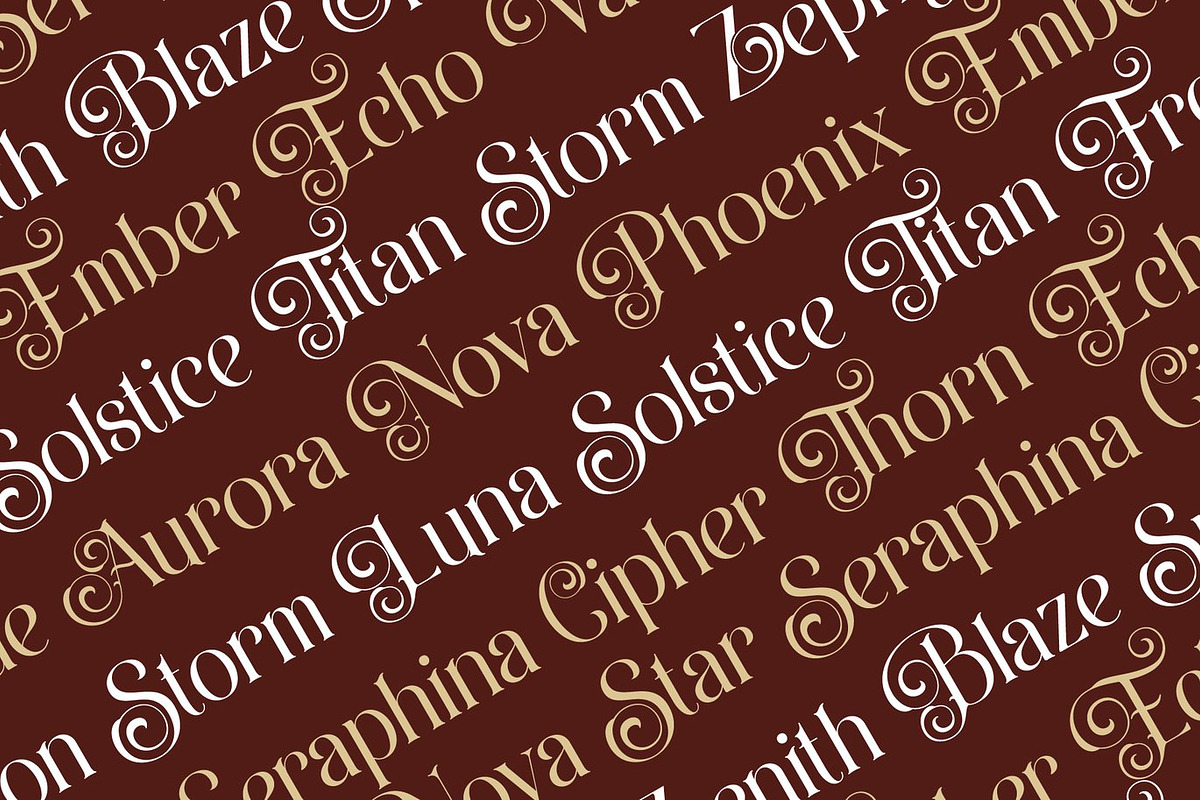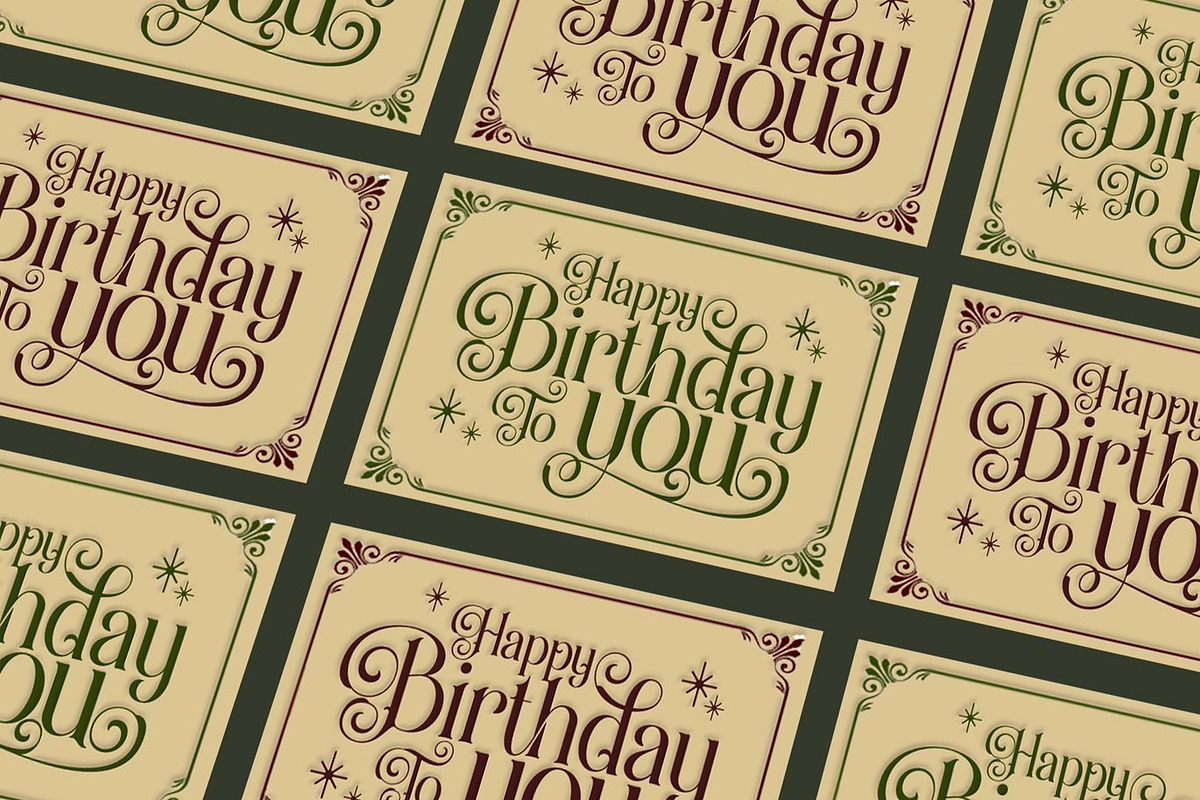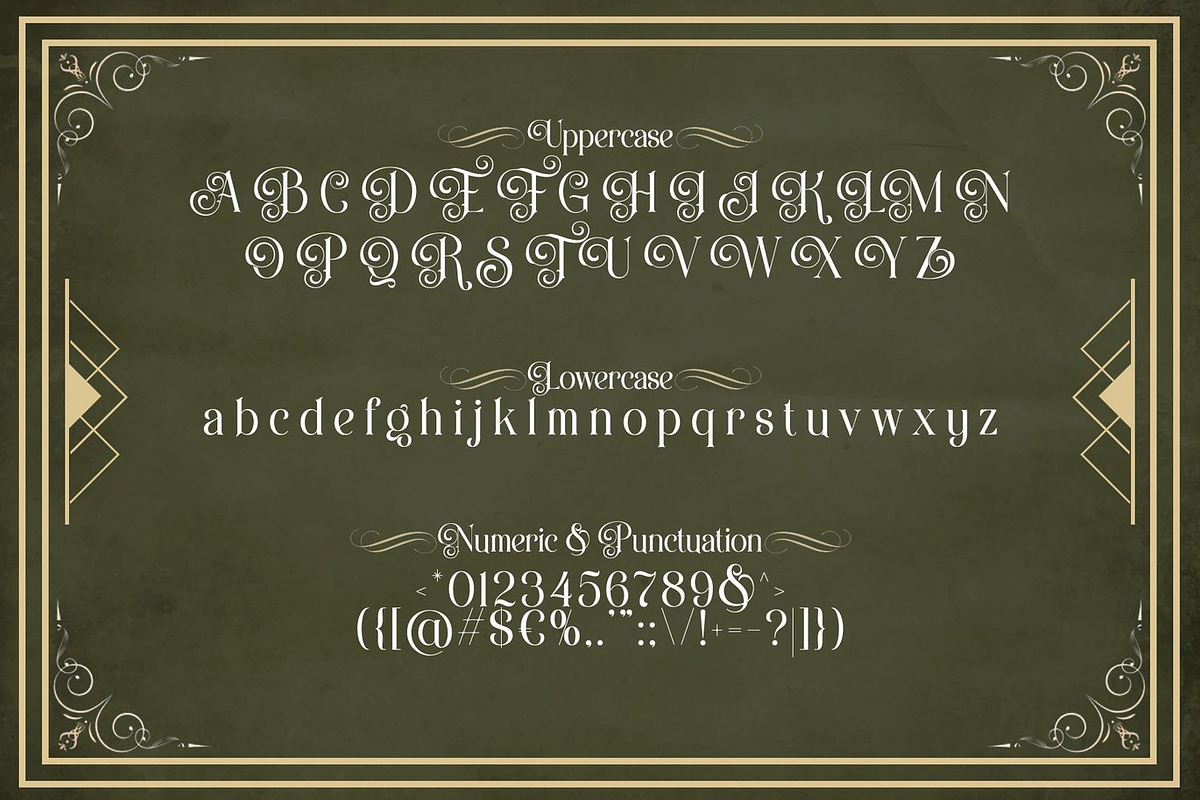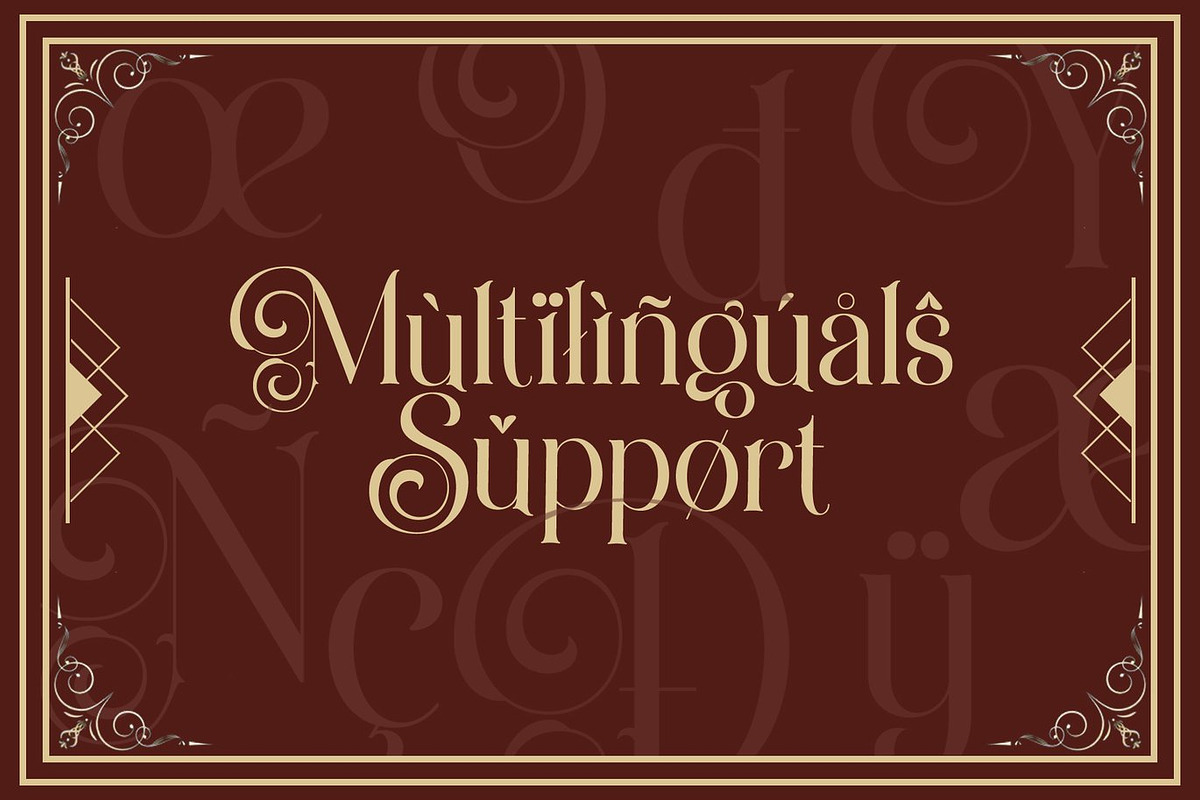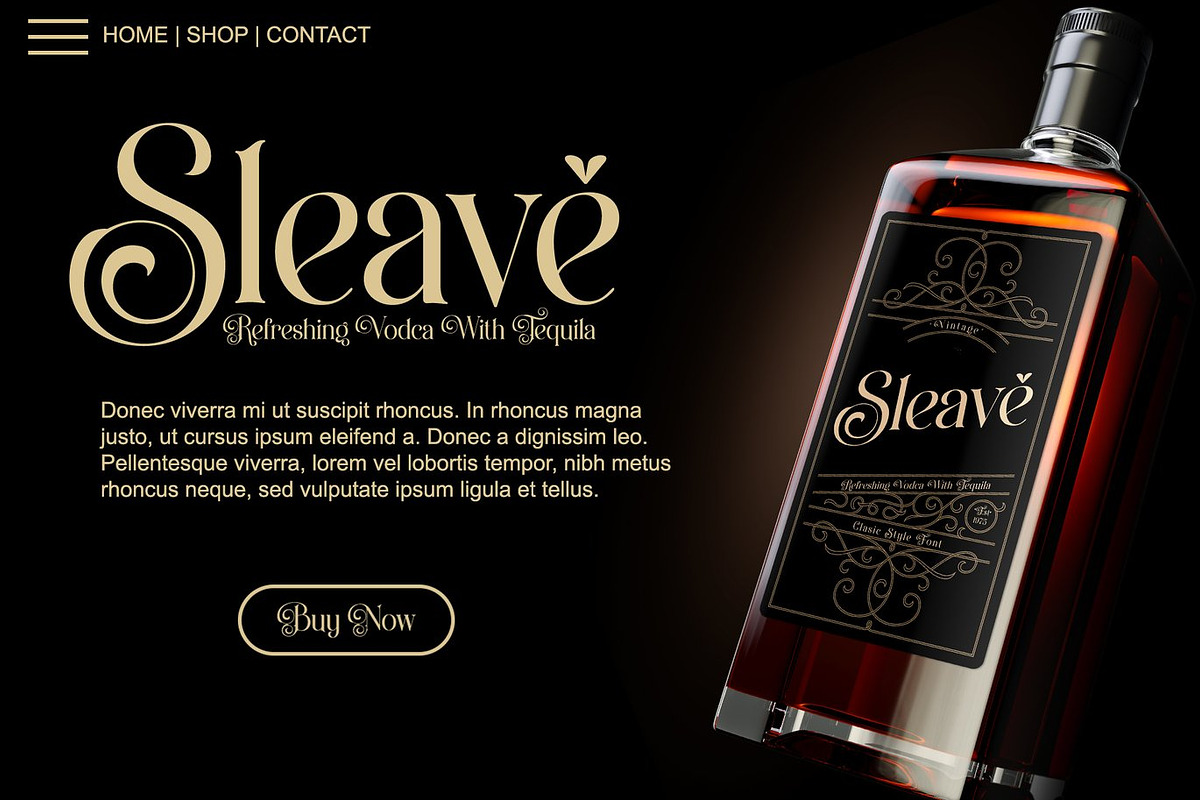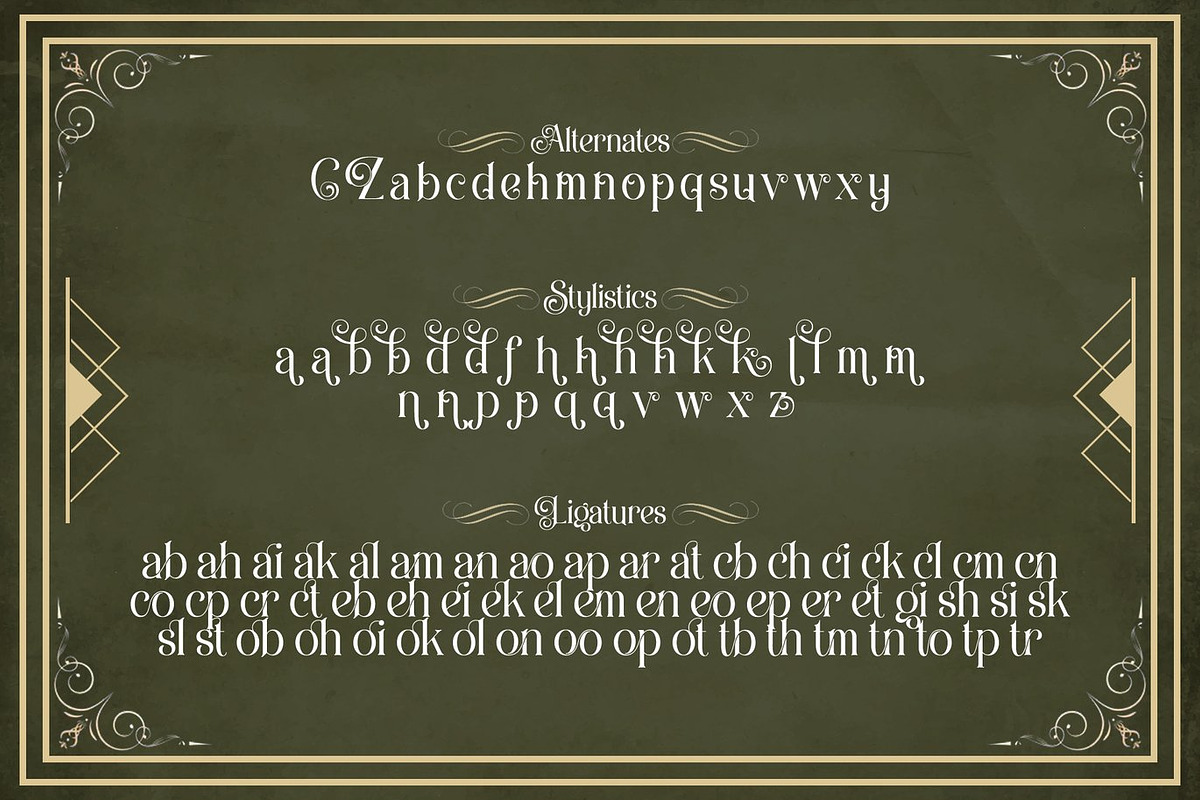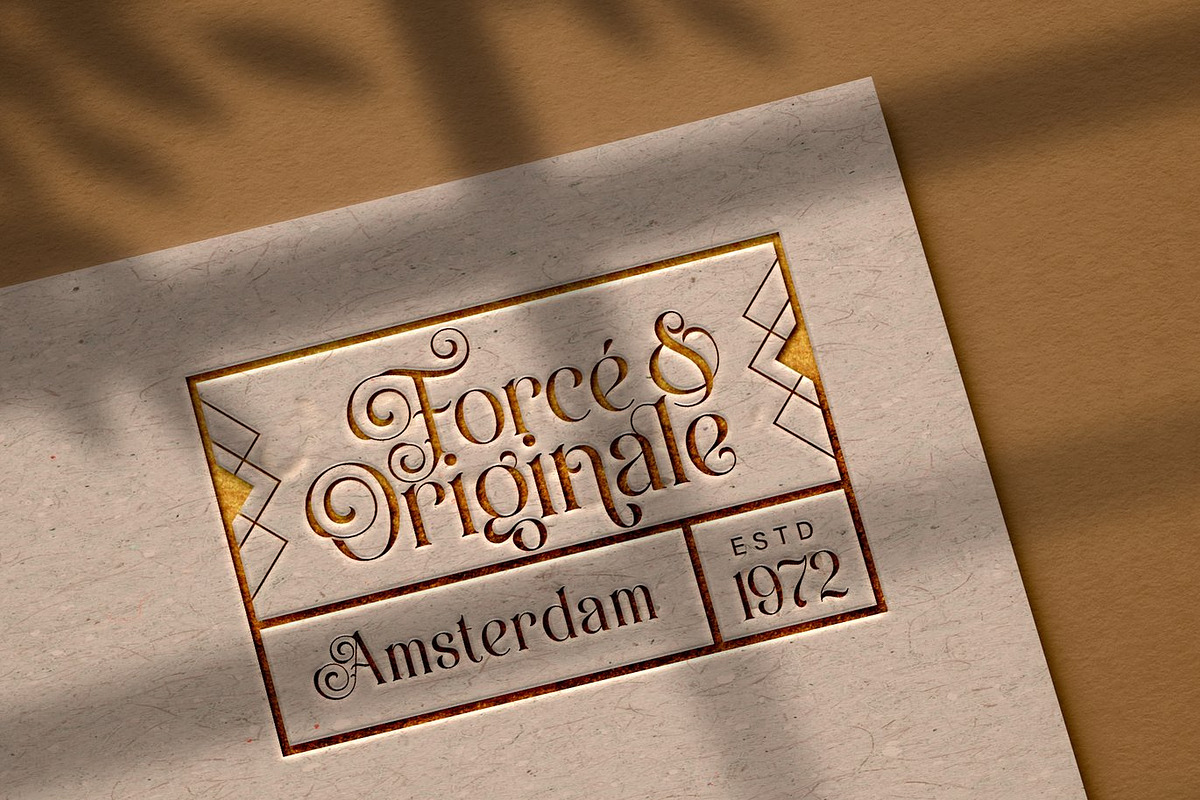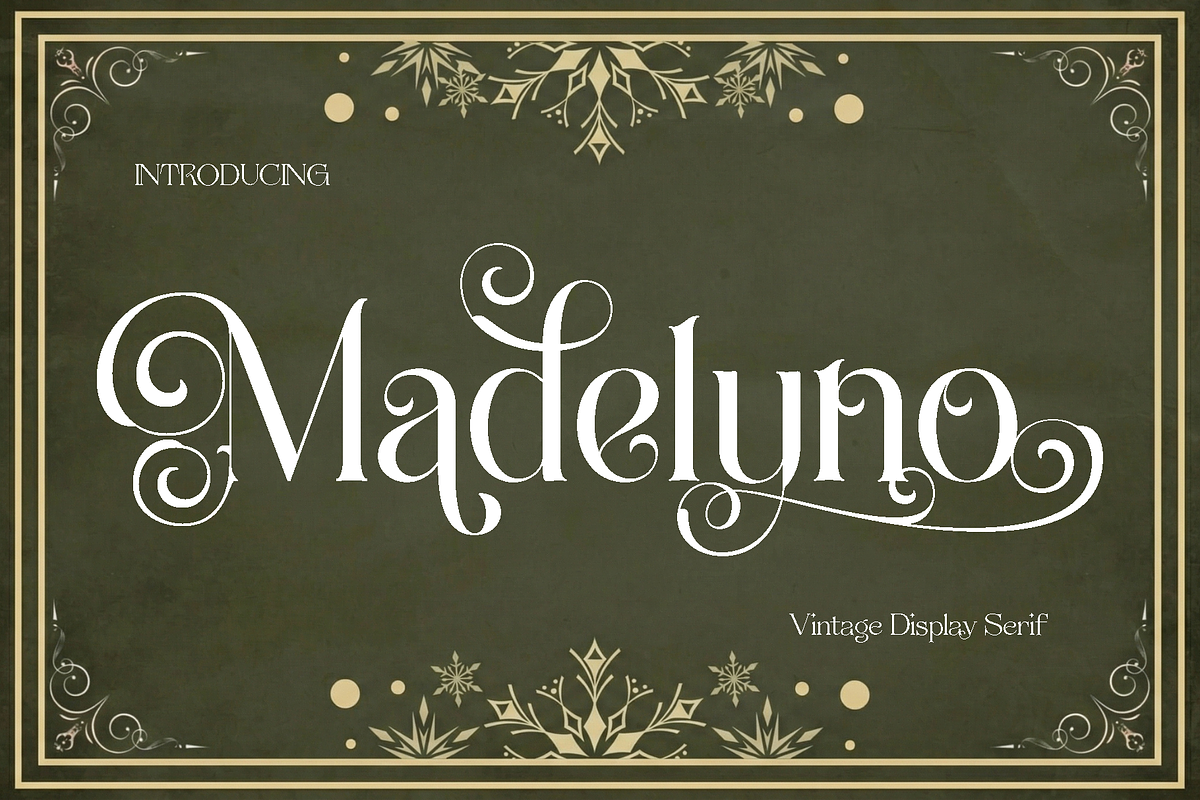
Madelyno - Vintage Serif
Madelyno is a beautifully crafted display font designed to bring elegance, style, and versatility to your creative projects. Its refined letterforms combine classic sophistication with a modern sensibility, making it a perfect choice for designers who want their work to feel polished, professional, and visually striking. Madelyno’s graceful curves and balanced proportions give every word a sense of harmony and presence, ensuring your designs stand out with confidence.
This font excels in a wide variety of applications, from editorial work such as books and magazines to branding, logo design, photography overlays, blog headers, posters, and advertising materials. Its clarity and charm make it ideal for both large headlines and subtle text details, allowing designers to craft compositions that are elegant, readable, and memorable.
Madelyno is not only stylish but highly functional, supporting uppercase, lowercase, numerals, and multilingual characters to accommodate global projects. Available in OpenType and TrueType formats, this font is versatile across digital and print mediums. Whether you are designing a sophisticated brand identity or creating artistic editorial content, Madelyno delivers a timeless aesthetic that elevates every project with elegance and modern flair.
Madelyno Font Features:
• Uppercase and lowercase characters
• Numerals included
• Functional and versatile for multiple uses
• Multilingual support